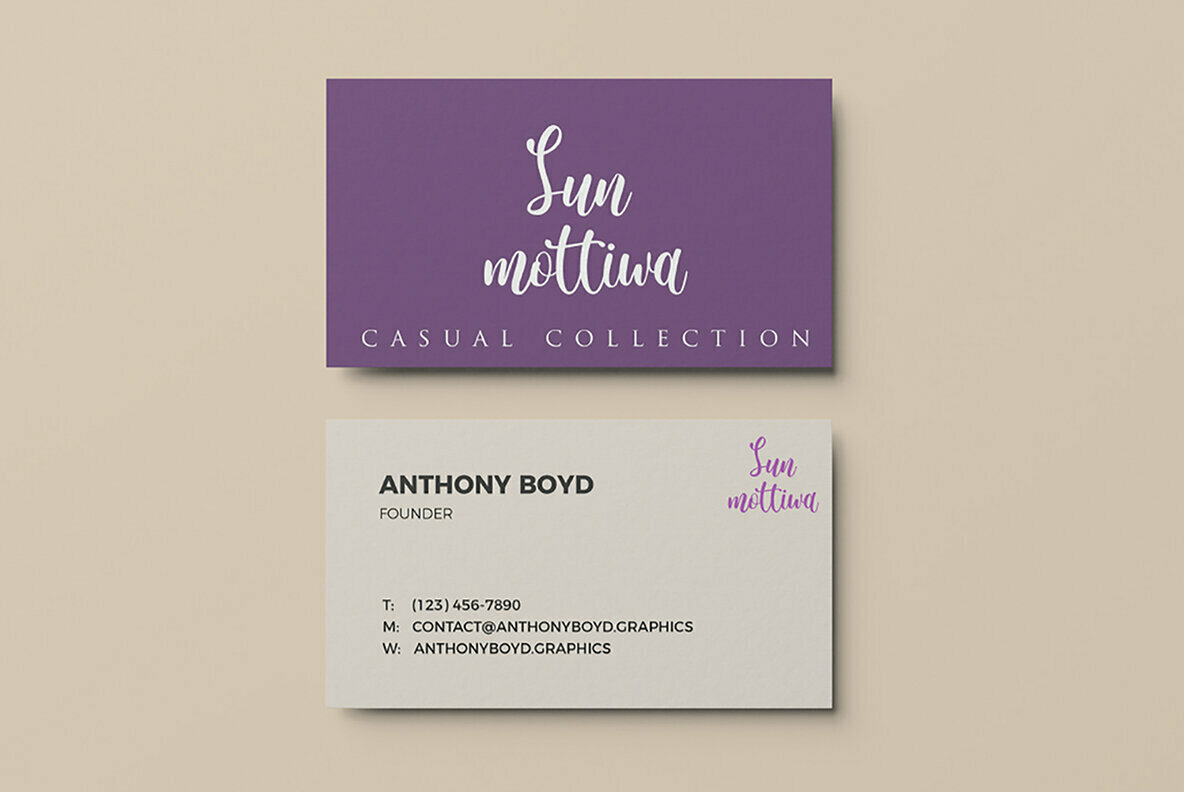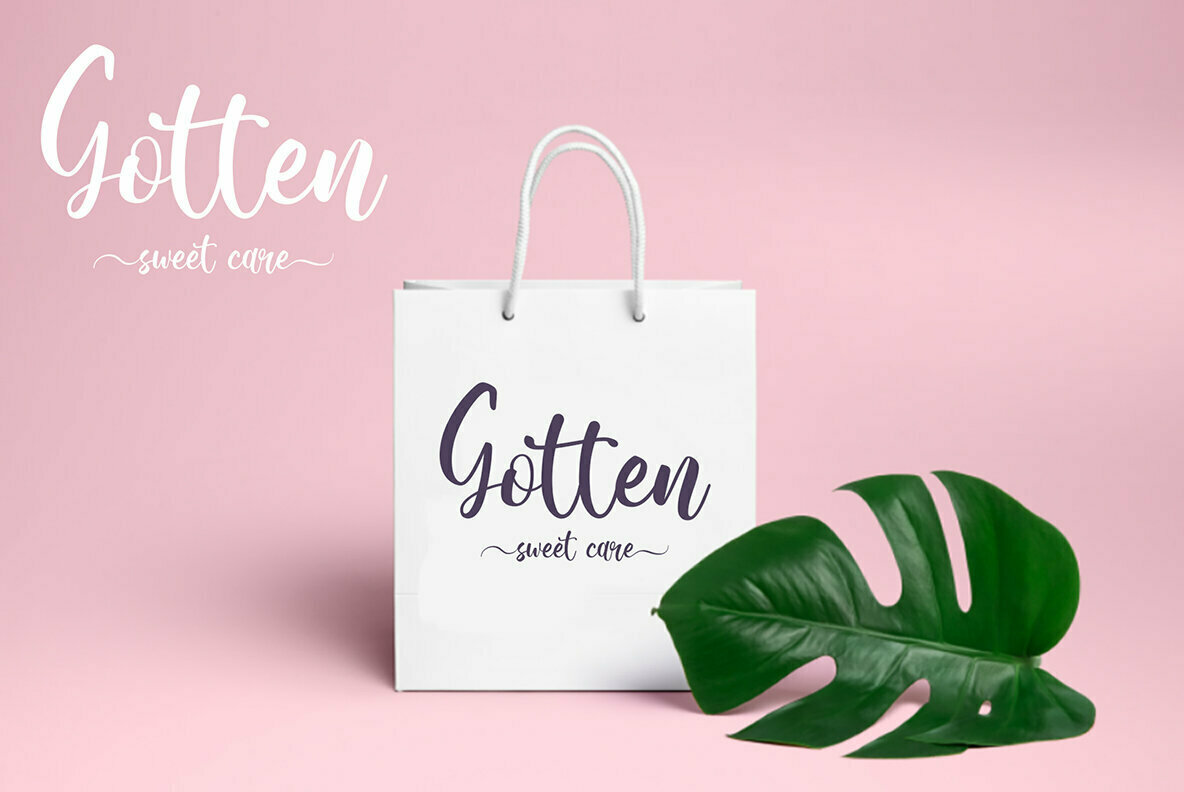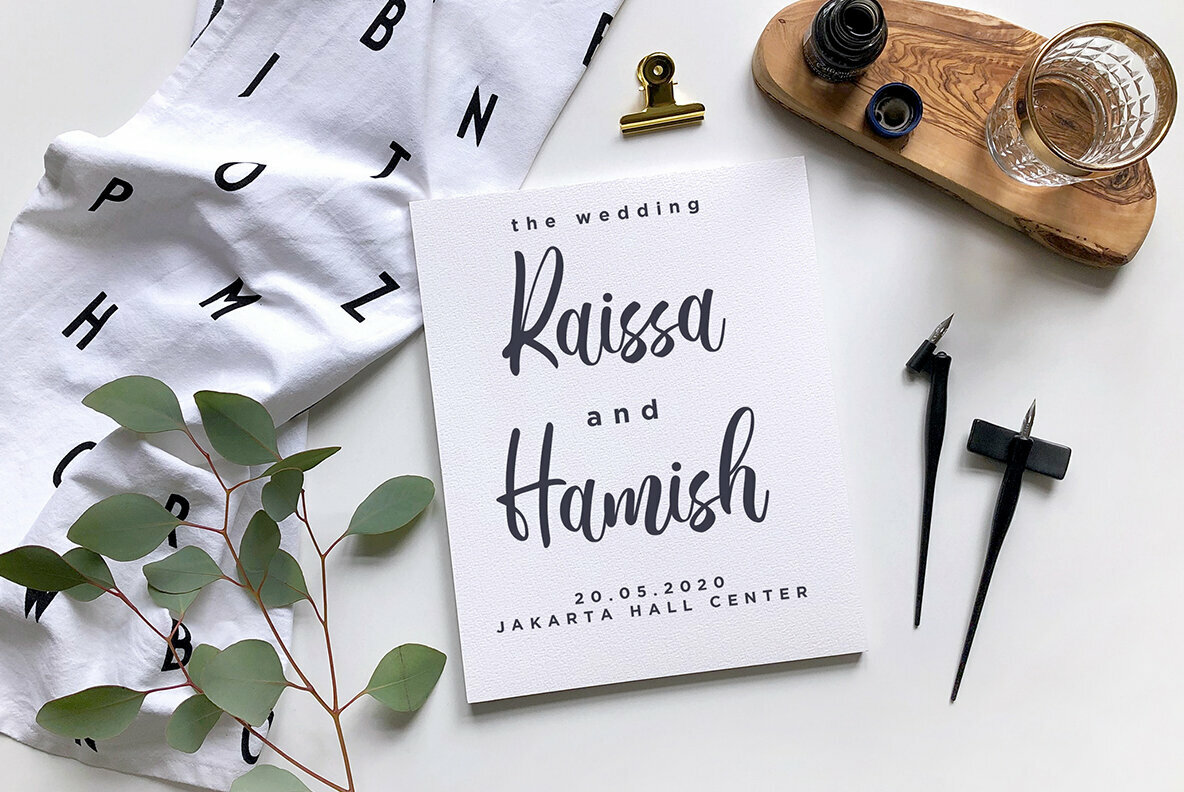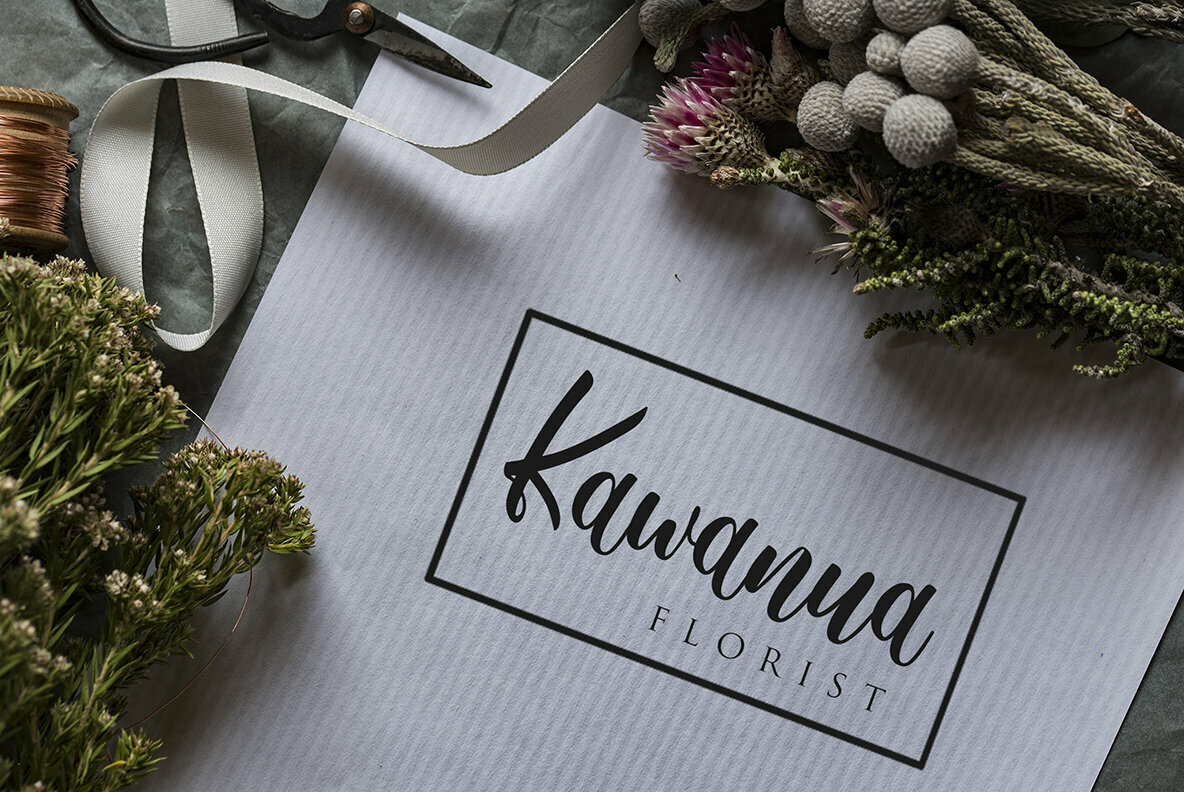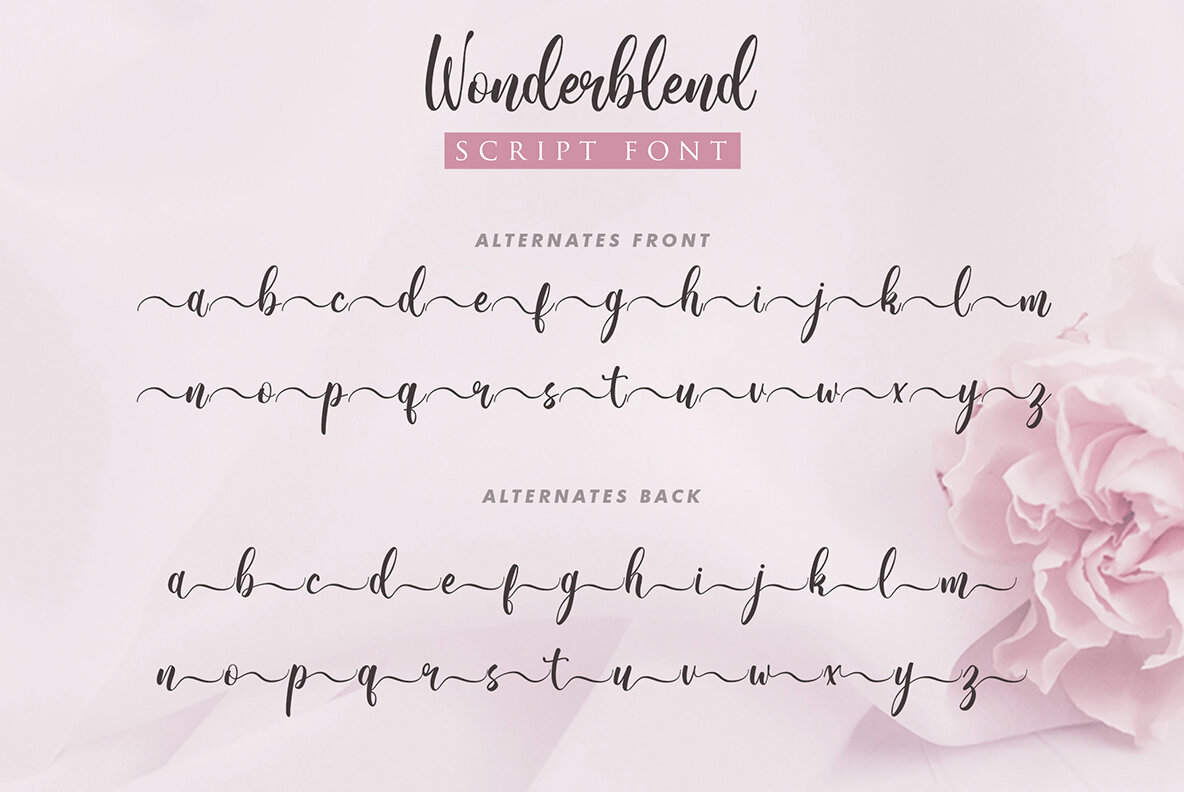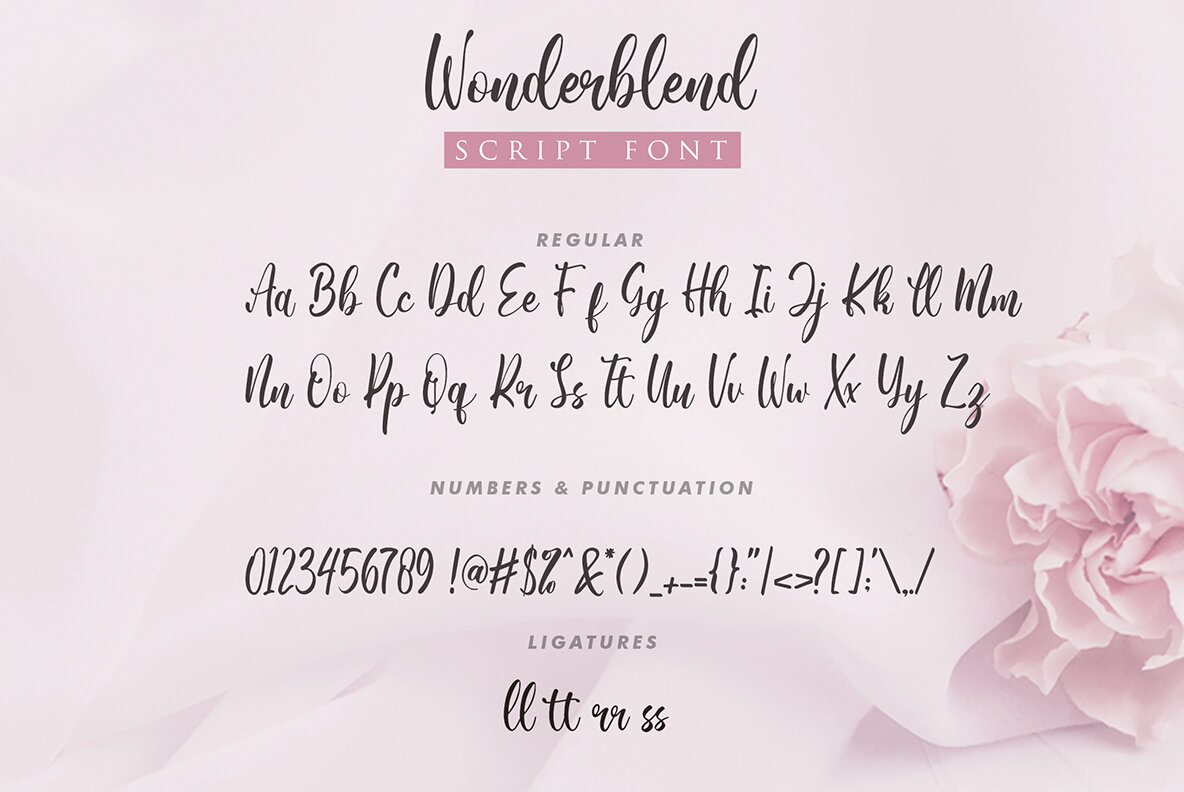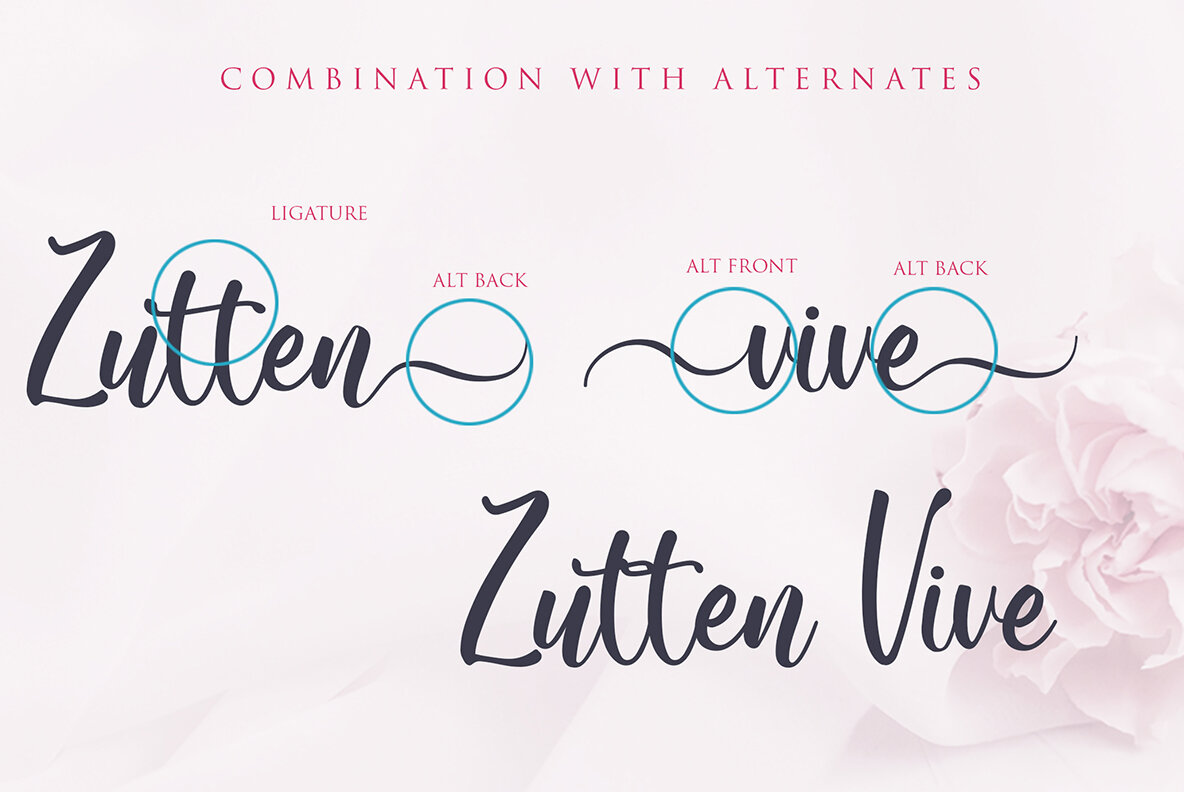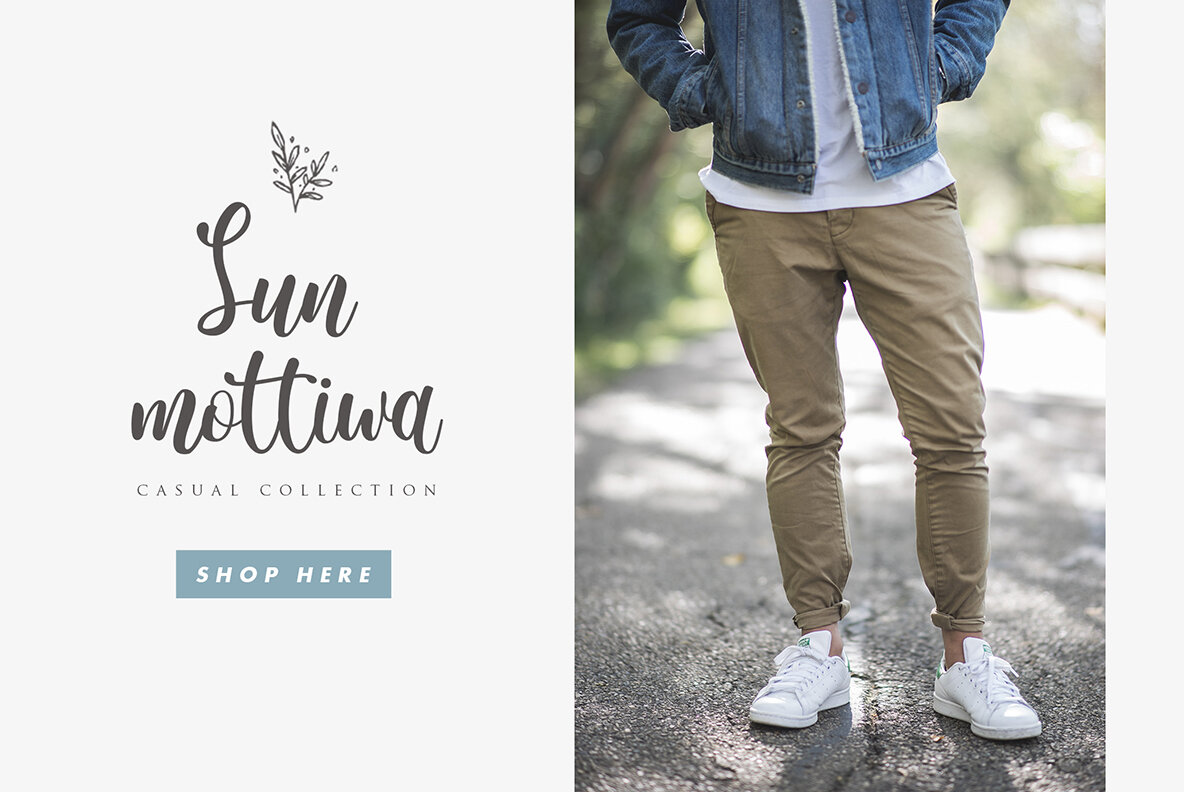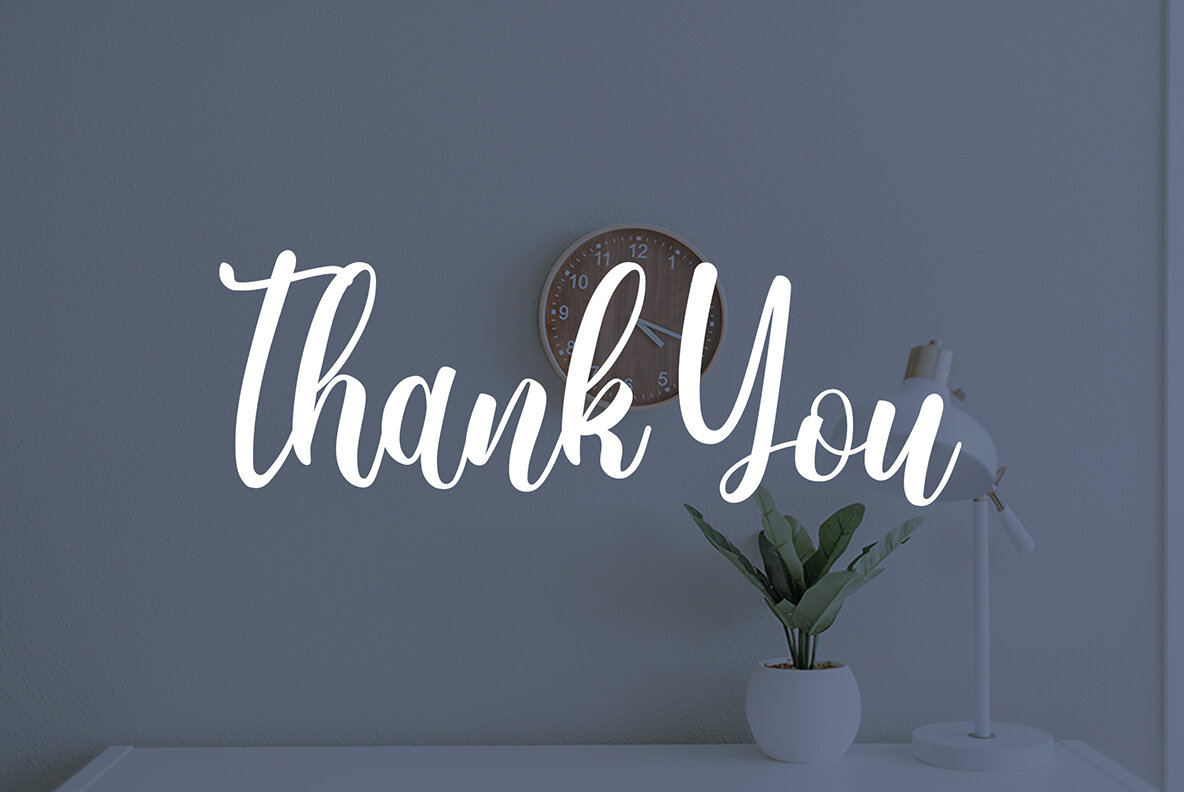
Wonderblend Font
Wonderblend combines extraordinary charm with a modern aesthetic, making it an ideal choice for a wide range of design projects. From logos and branding to invitations and social media posts, Wonderblend provides the versatility needed to bring creative visions to life. Whether crafting product packaging, posters, or crafting elegant wedding designs, this font shines in special events and fashion contexts alike. With full PUA encoding, Wonderblend offers easy access to an array of stylistic alternates and ligatures, paving the way for strikingly unique compositions. Embrace seamless multilingual support with an extensive range of accented characters and diacritics.Wonderblend: Modern Elegance for Diverse Applications